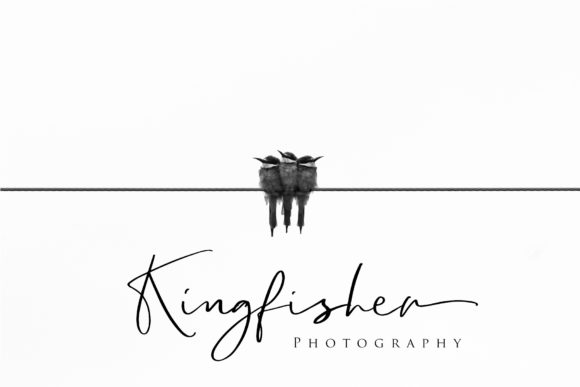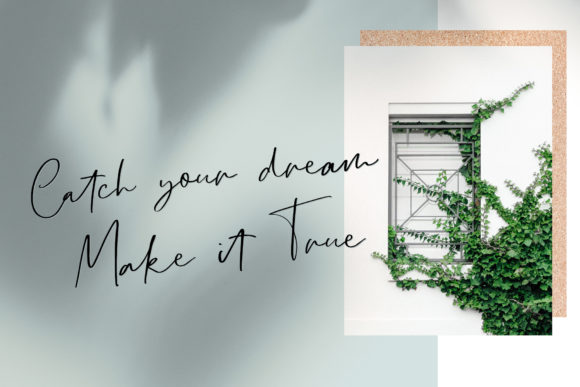
Cllarin Font
db-ku.com - Script & Handwritten -- Cllarin has an easygoing and relaxed appearance, but its contemporary design will add a dramatic effect to any design!